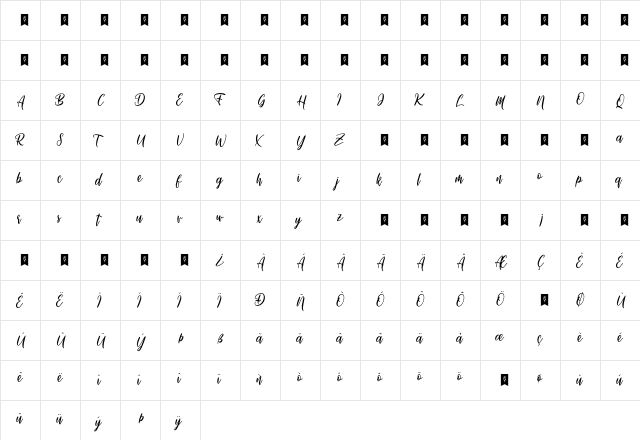
Michellate Regular Font Preview
Michellate Regular
Design Context for Michellate Typeface
Michellate is a composed and adaptable typeface that performs quietly and consistently across a wide range of design contexts.